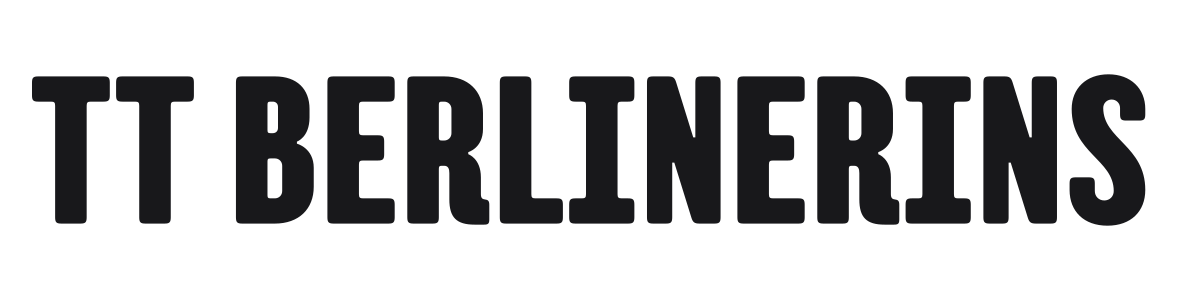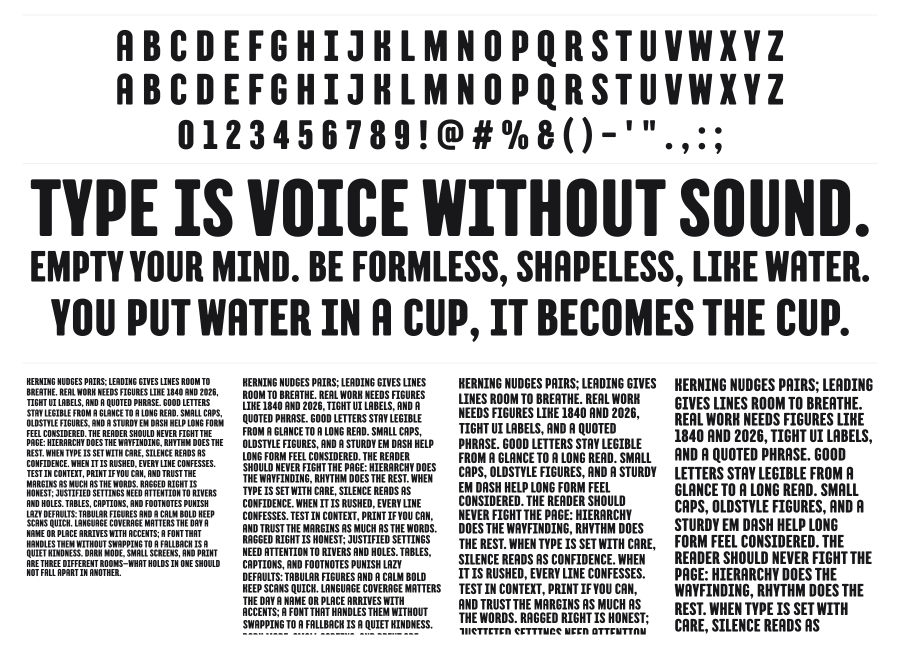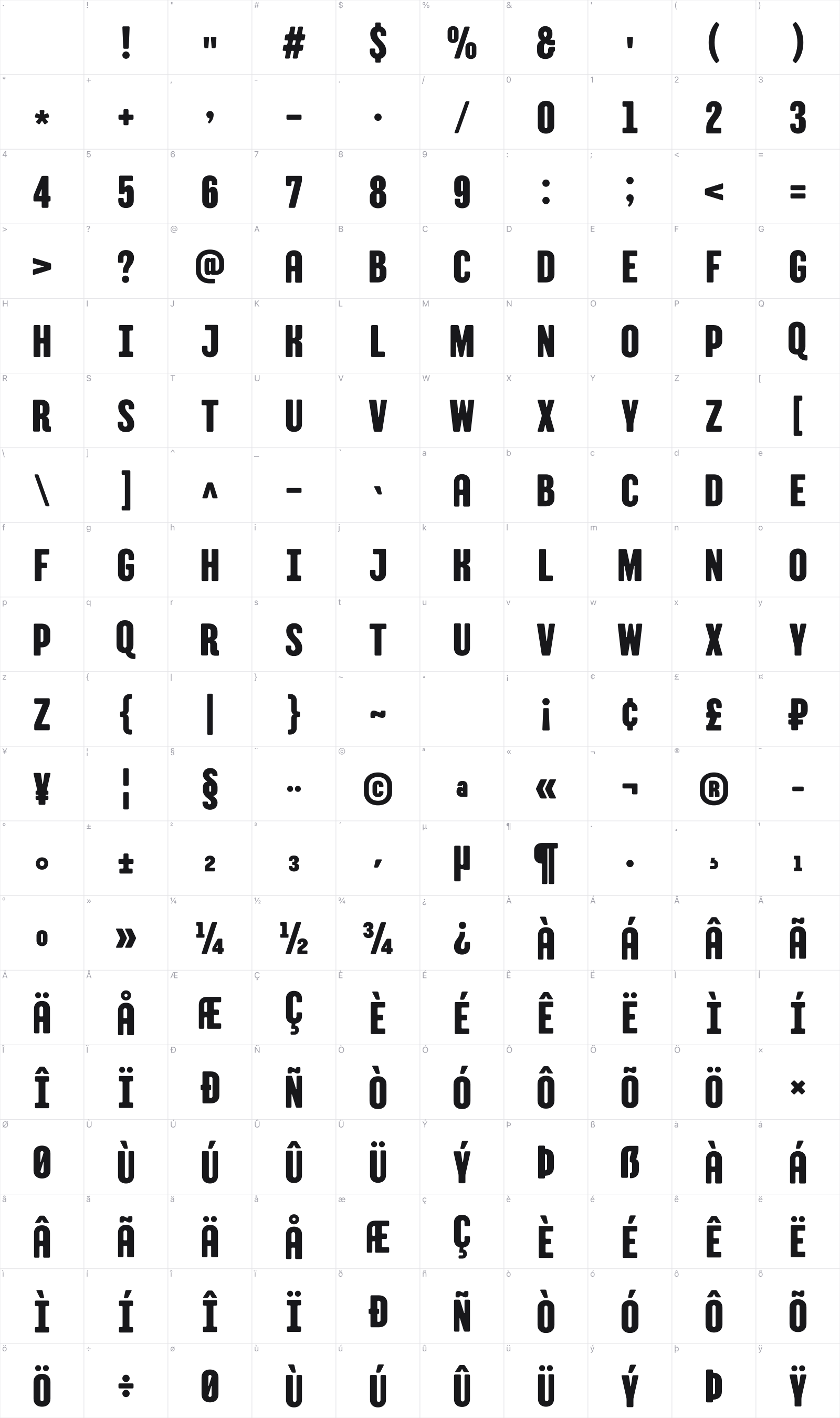
TT Berlinerins
TT Berlinerins is a heavily condensed bold grotesque from TypeType, built for maximum impact in tight horizontal space. The near-monoweight strokes and subtly rounded interior corners give it a compact, muscular quality without feeling rigid. It pushes hard in headlines, posters, and anywhere a bold condensed voice is needed.